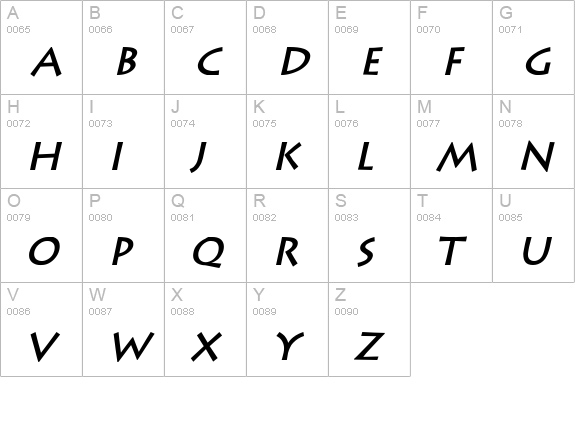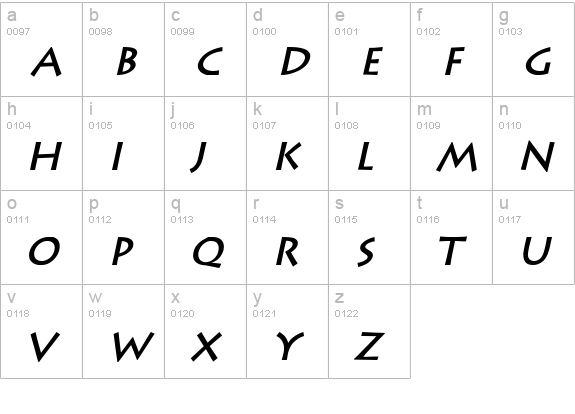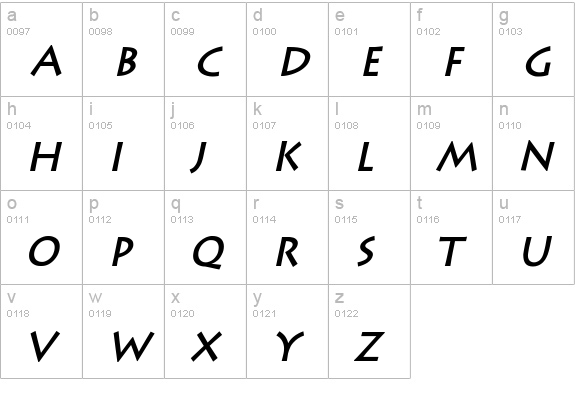
Liste Bold Italic is a strong, high-contrast, italic variant in the Liste typeface family \xE2\x80\x94 well suited to headlines, attention-grabbing titles, and strong calls-to-action.
Introducing Liste Bold Italic font, a dynamic and eye-catching typeface that exudes confidence and modernity. This font is perfect for making a bold statement in your designs, whether it's for branding, advertising, or editorial purposes. The striking combination of boldness and italics adds a sense of style and sophistication to any project. What's even better is that Liste Bold Italic font is available for free download at FontsMarket.com. Yes, you read that right - this impressive font can be yours at no cost, making it a valuable addition to your font collection without breaking the bank. Don't miss out on the opportunity to elevate your designs with Liste Bold Italic font - download it now and let your creativity shine!